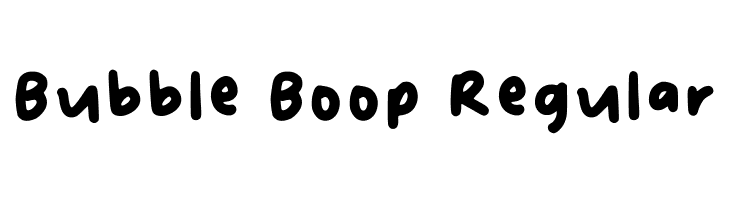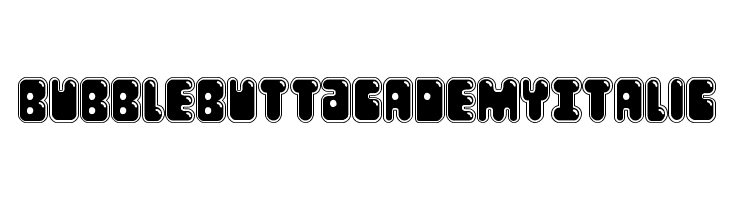
A playful, bubbly font with rounded characters and a whimsical style.
A playful, bold font with a bubbly, retro style.
A playful, 3D bubble font with an italic slant and bold, rounded characters.
A bold, 3D bubble-style font with rounded edges and shadow effects.
A bold, bubbly, and italic font with a playful, three-dimensional look.
A bold, bubble-like font with a playful, retro style.
A playful, bold, and condensed typeface with bubble-like characters.
A playful, bold, and condensed italic typeface with bubble-like characters.
A bold, playful font with bubble-like, expanded characters.
A bold, expanded, and italicized font with a playful, bubbly design.